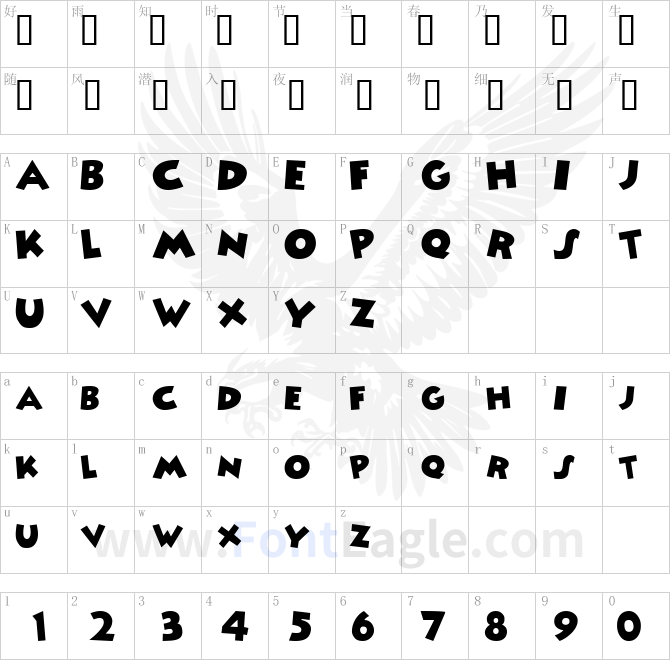
- Font name:Disney Minnie
- Font Subfamily ID:Altsys Fontographer 4.0.4D2 Disney Minnie
- Font Full Name:Disney Minnie Regular
- Font Version:Altsys Fontographer 4.0.4D2 10/13/94
- Postscript:DisneyMinnie